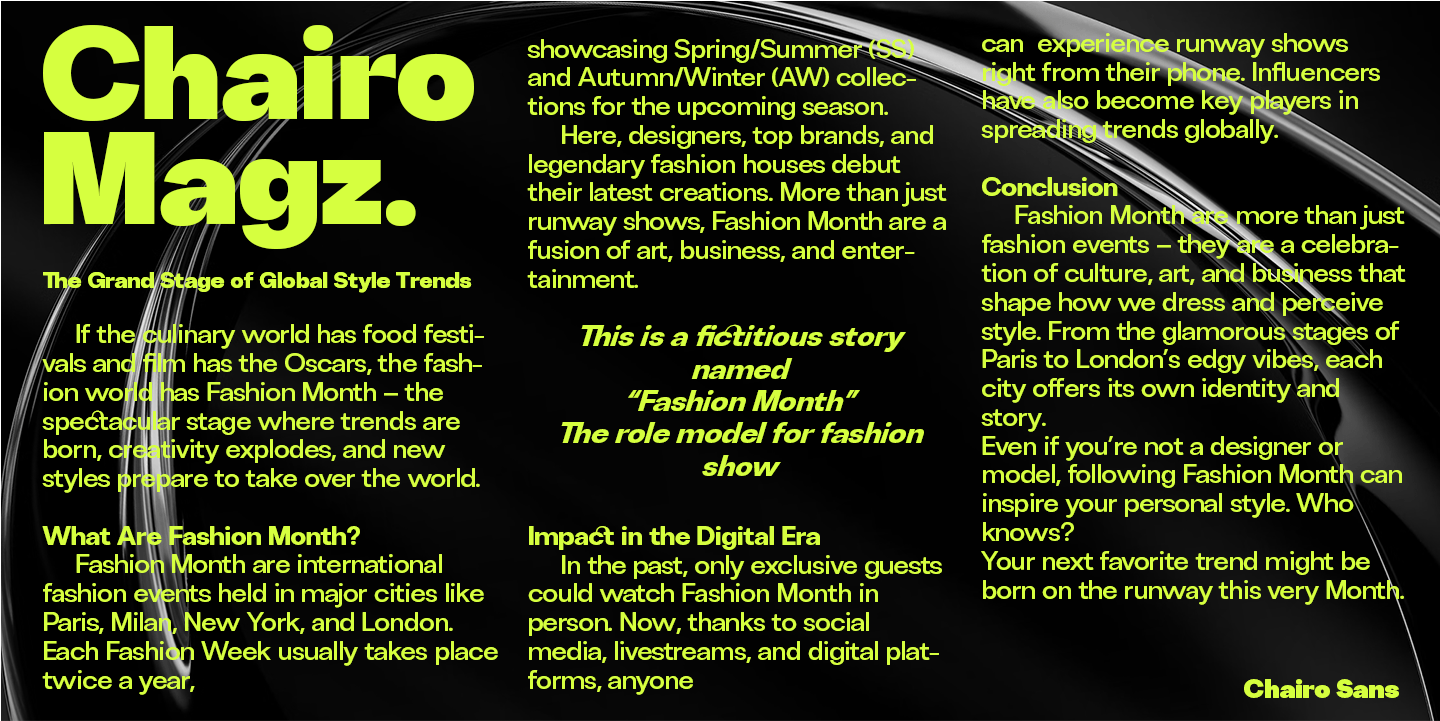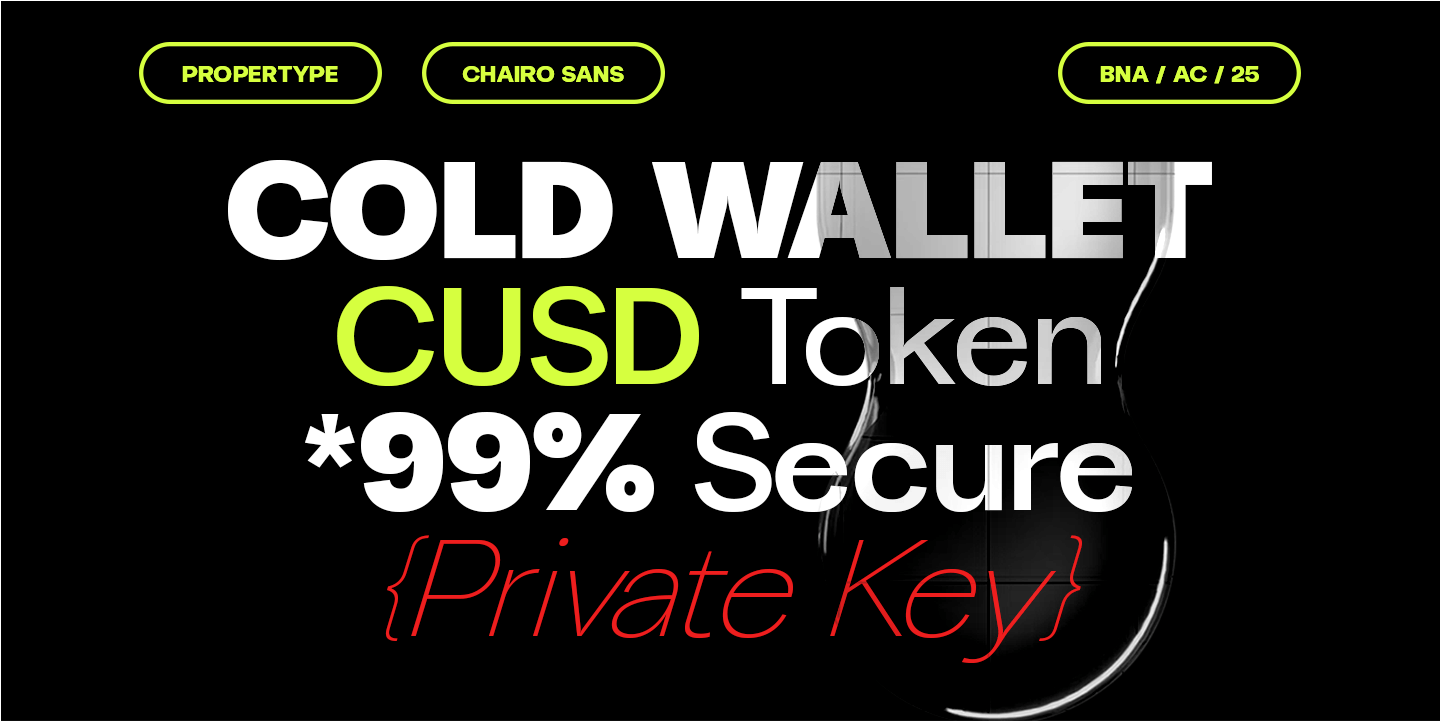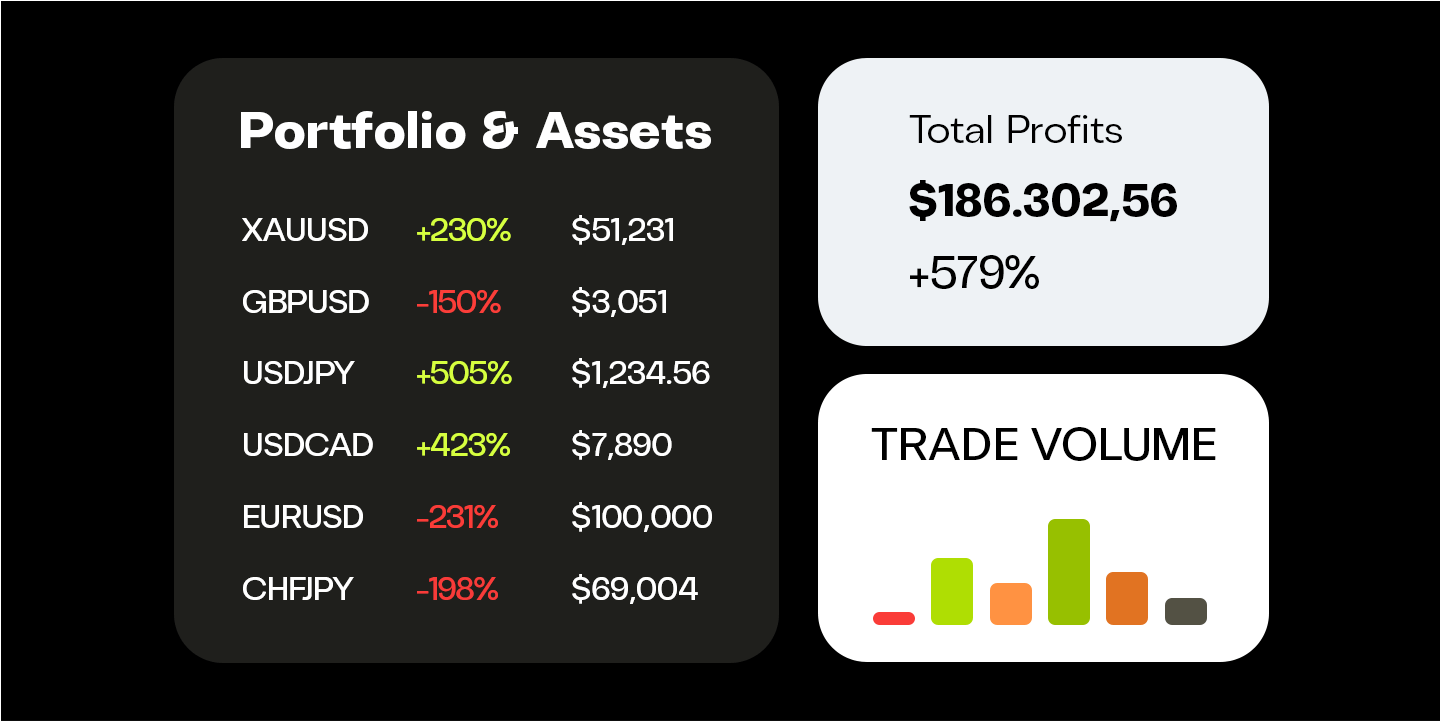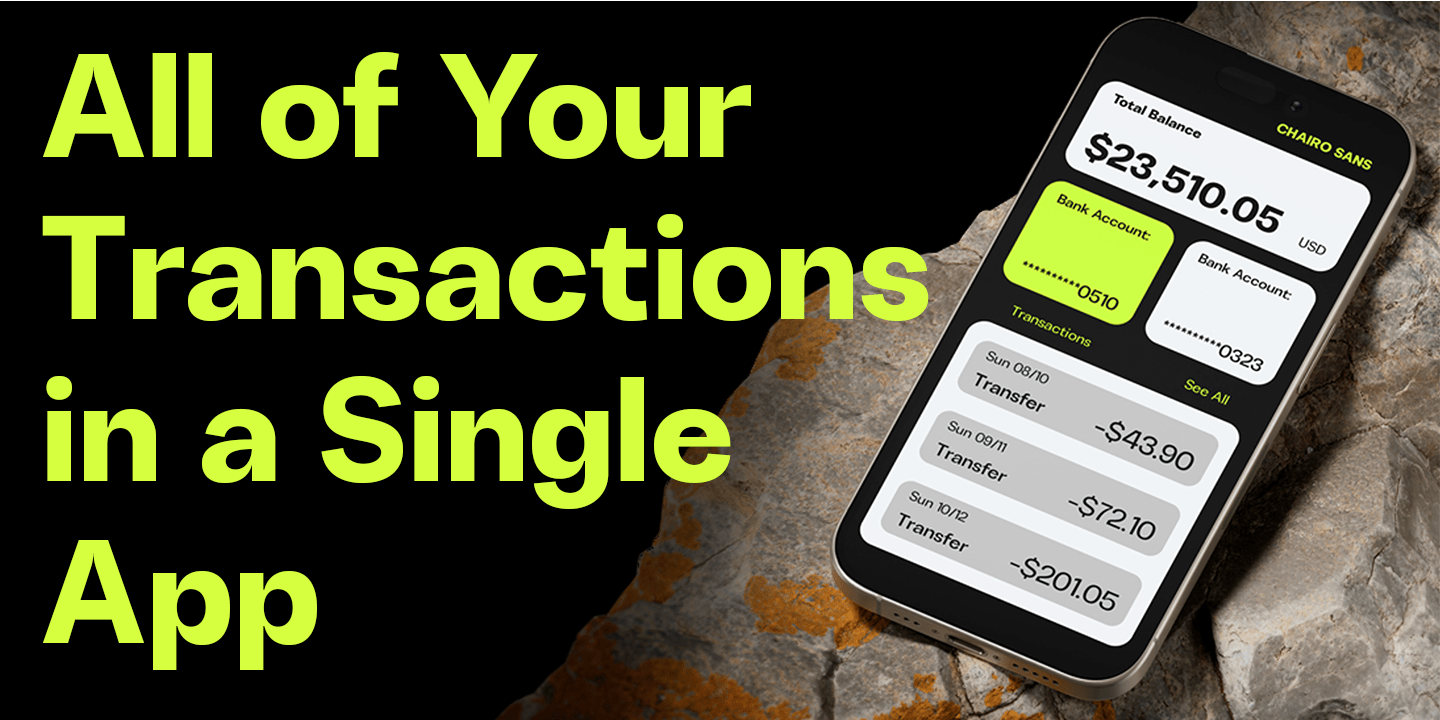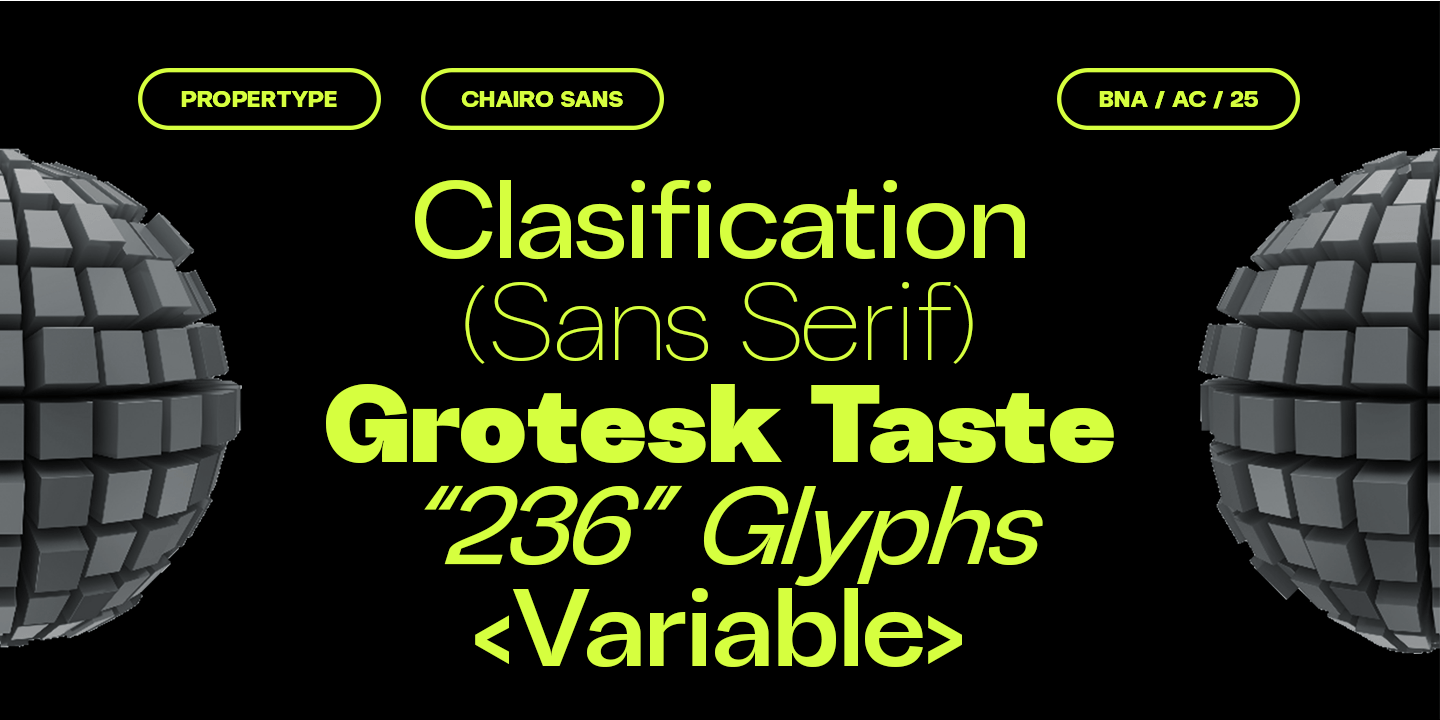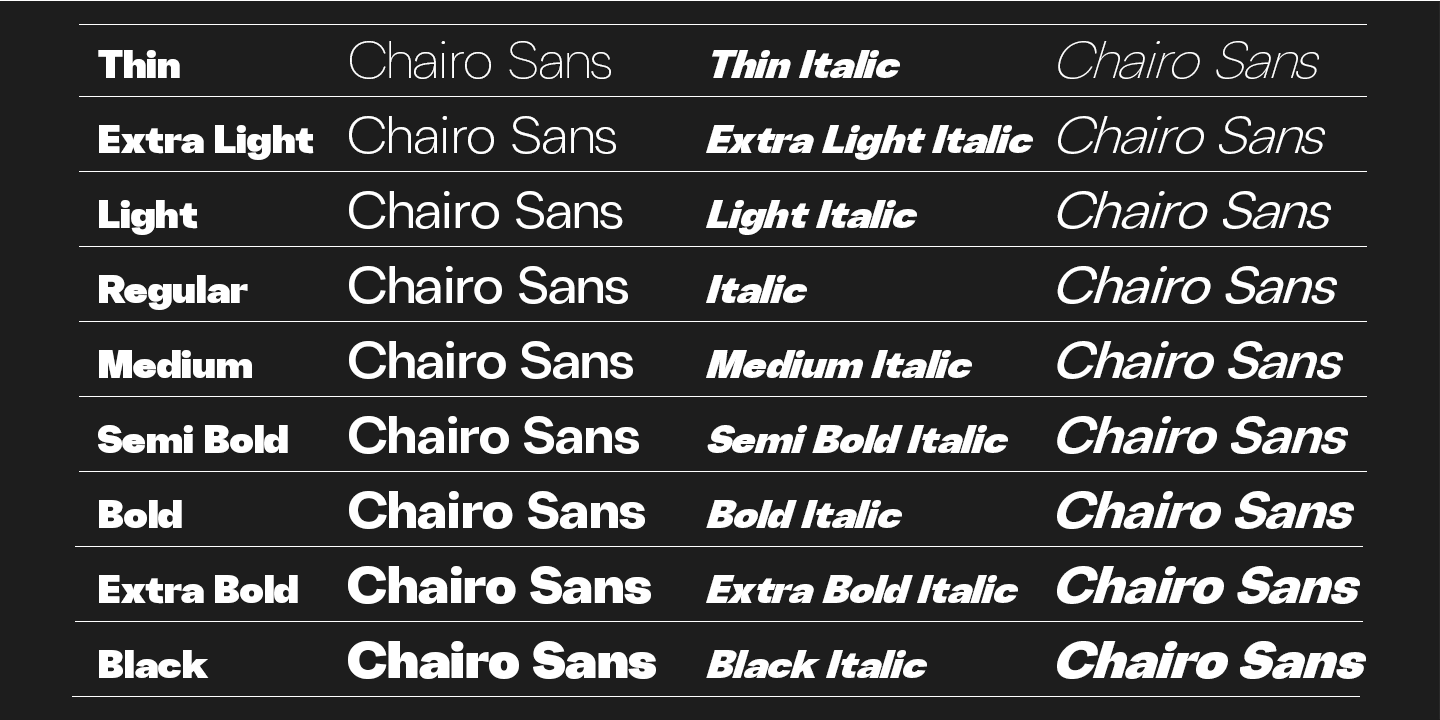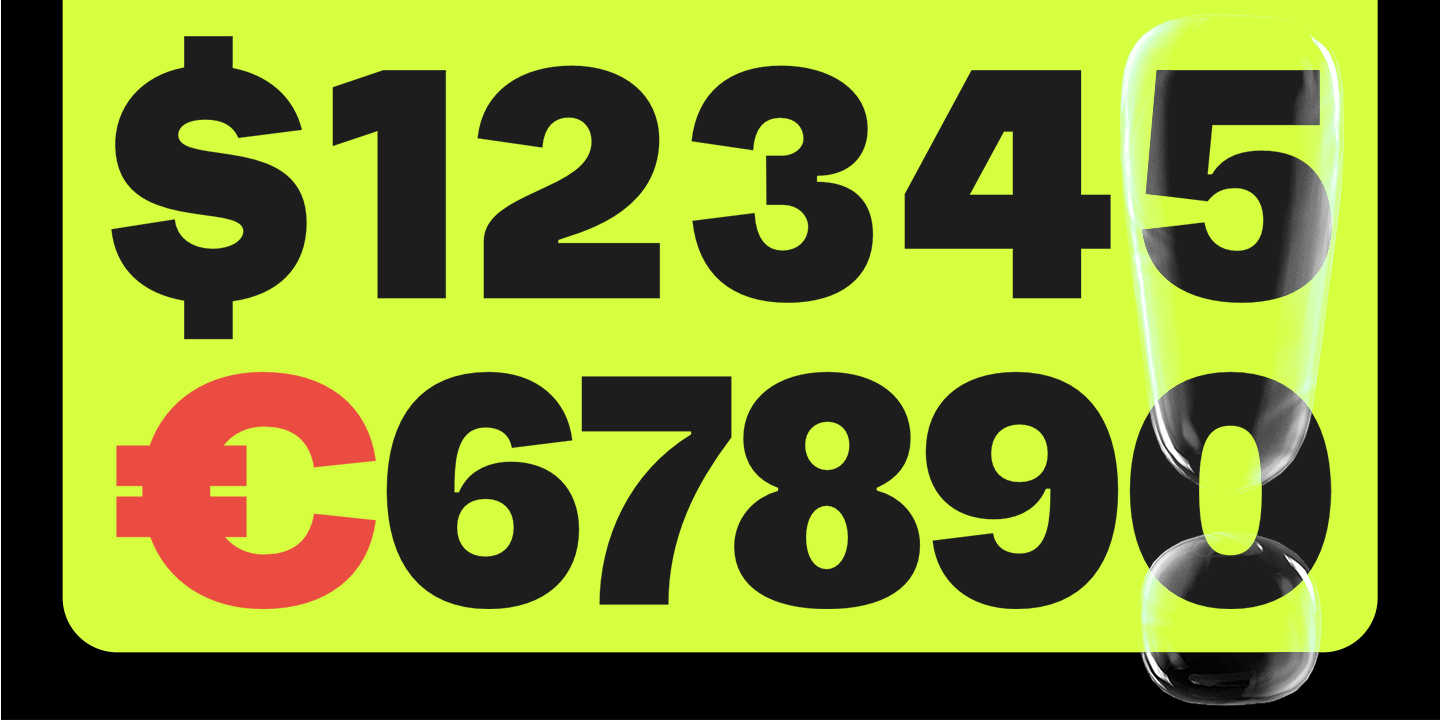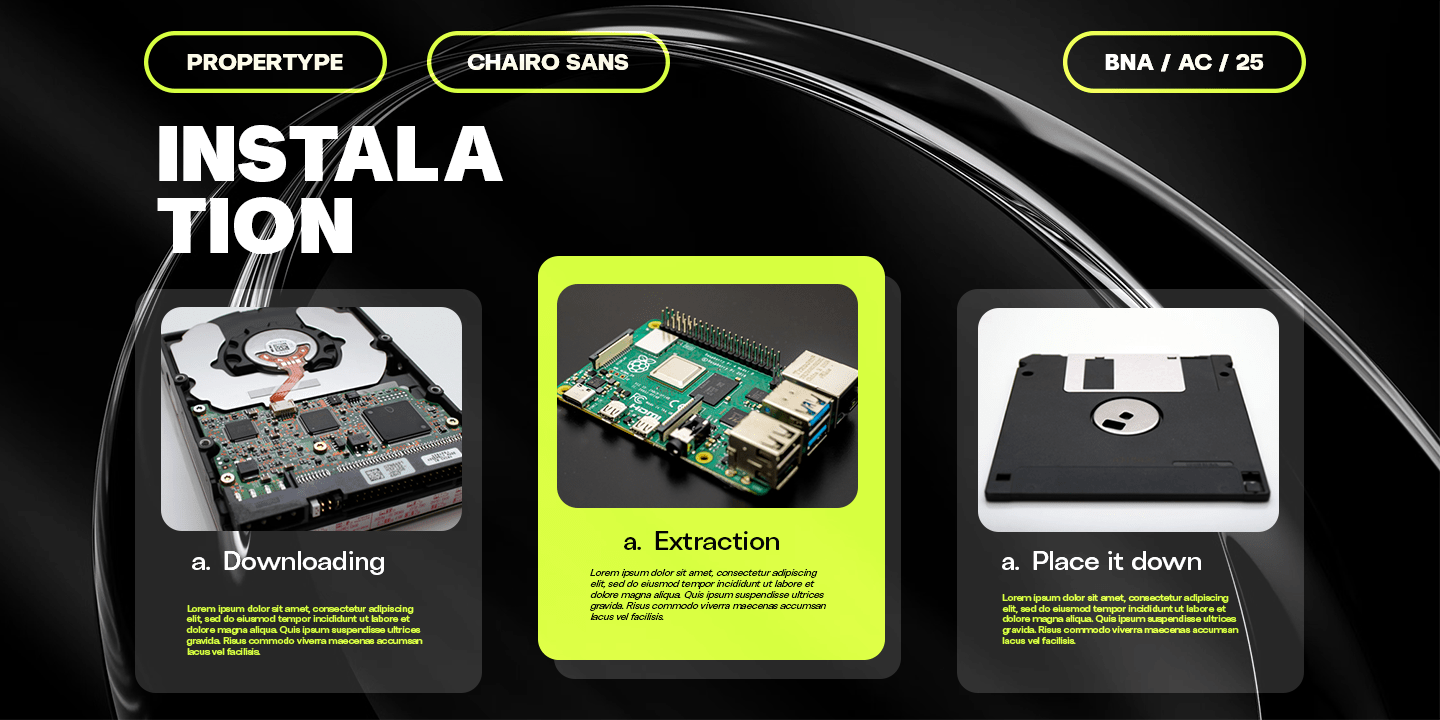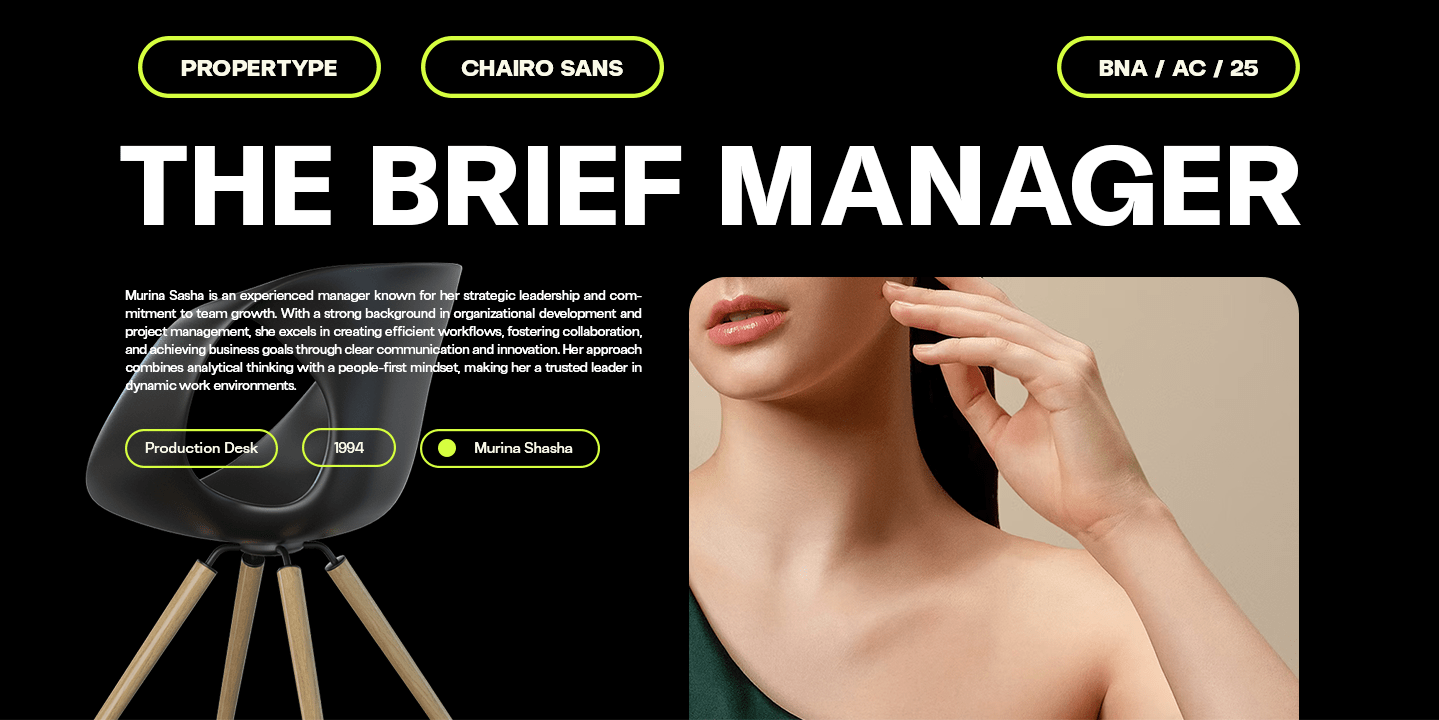
Chairo Sans
Font Family by Propertype
Chairo Sans is an elegant, modern, and contrasting sans-serif font family. It includes upright and oblique styles, each having seven weights from thin to thick. This is a versatile font perfect for any project, contrasting, modern and easy to read. With it, you can create logos, use them in advertising, packaging, book and magazine covers, titles, descriptions and much more.
• Uppercase Characters
• Lowercase Characters
• Numbers and Ligatures
Chairo Sans Family features multilingual Support for multiple languages.